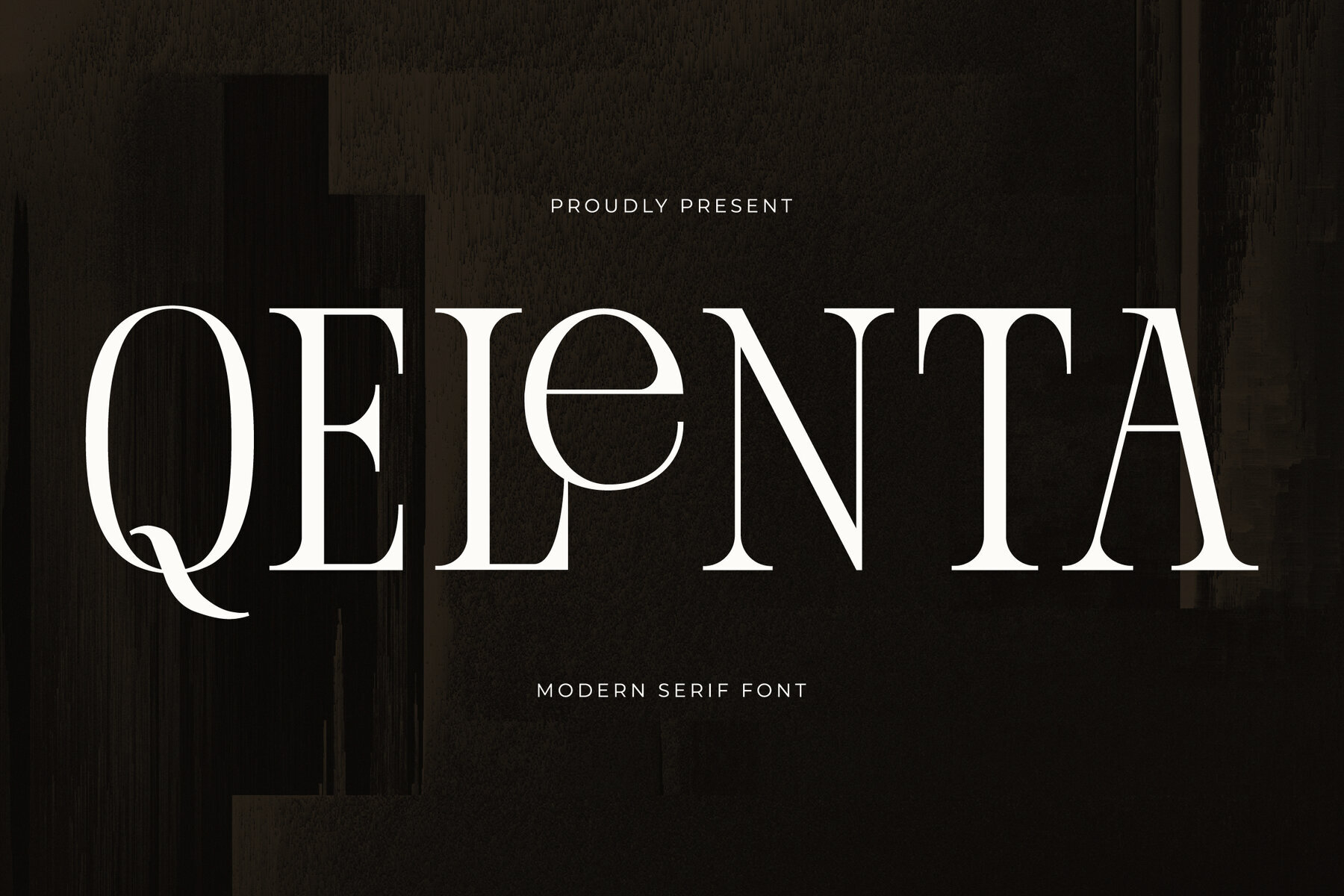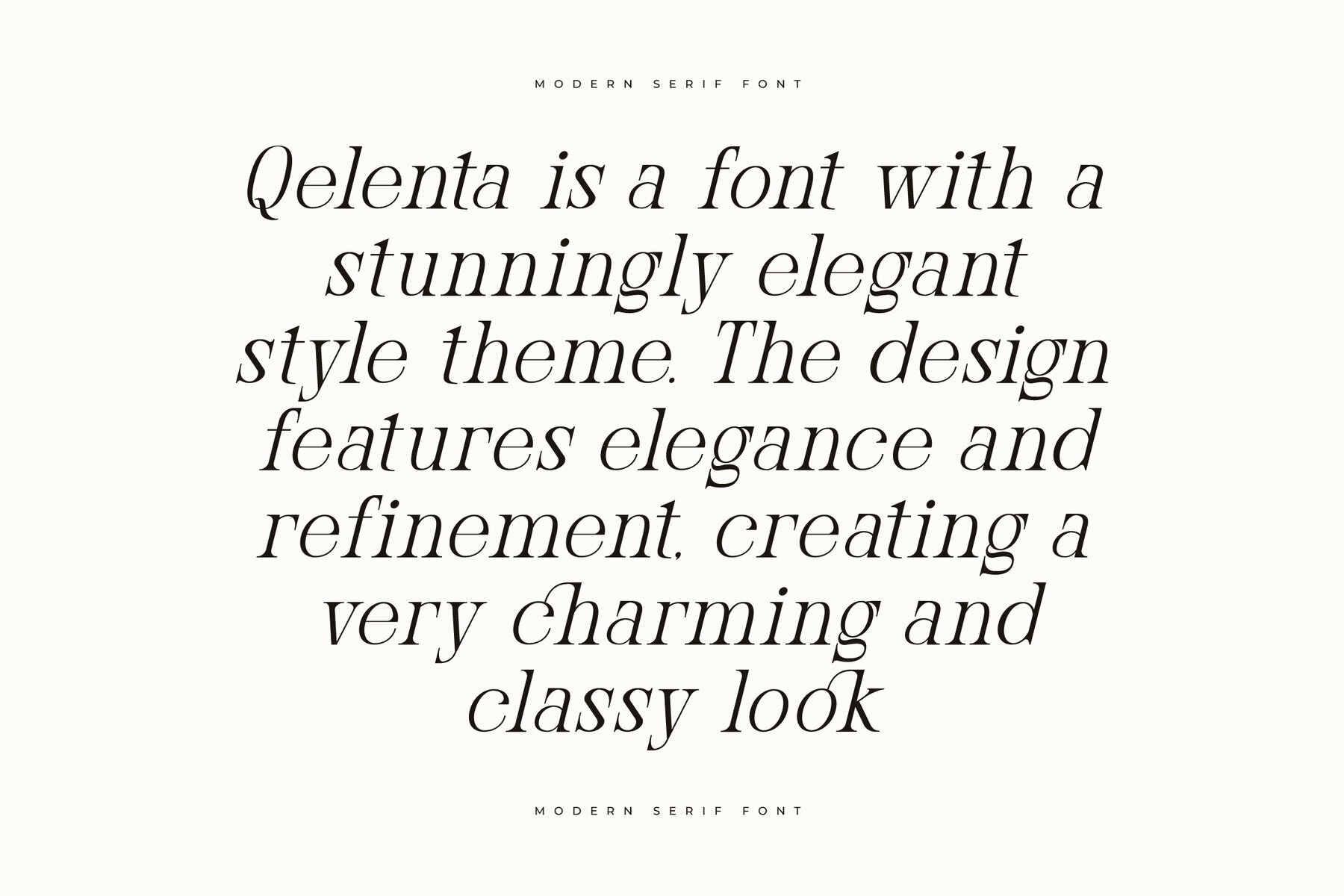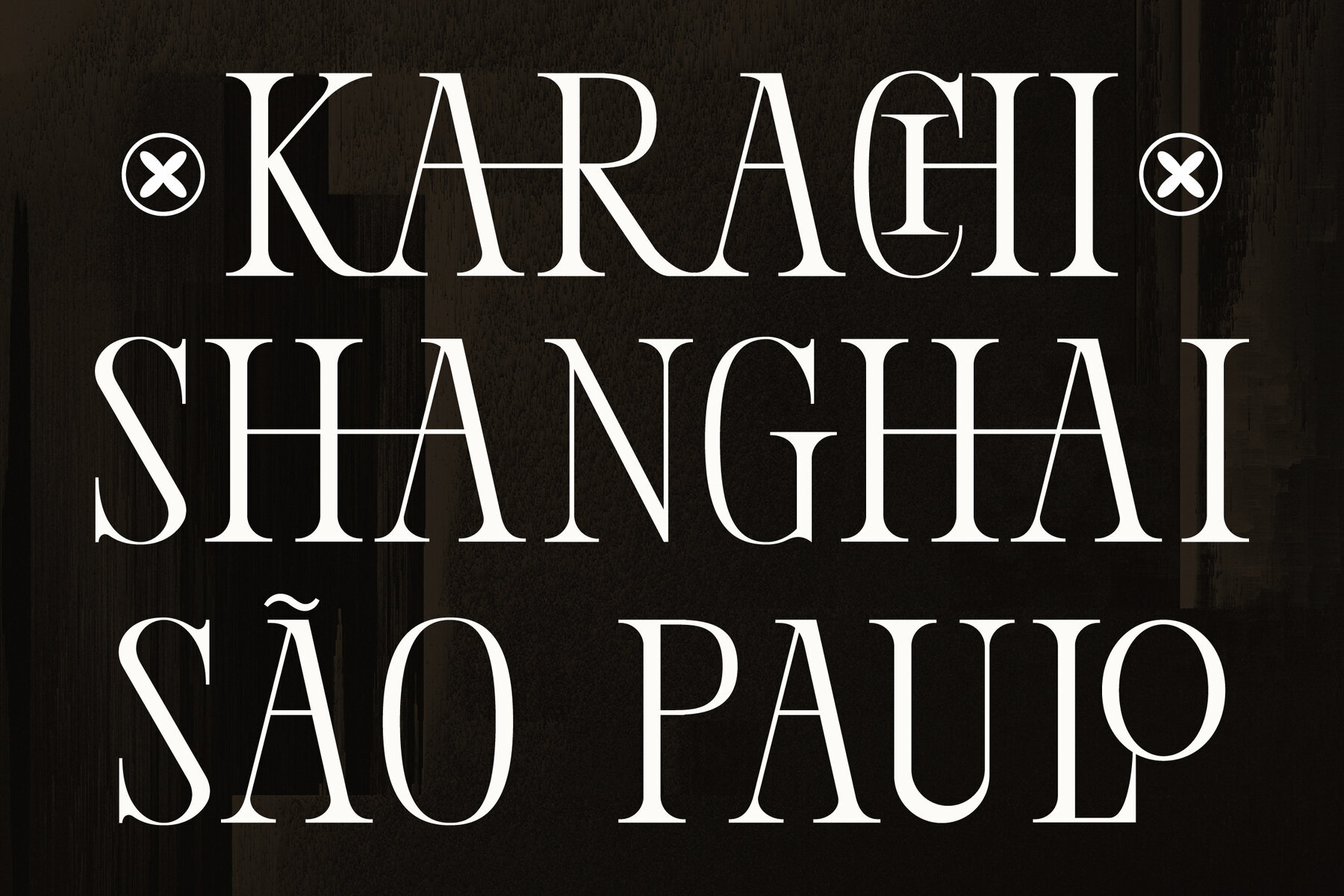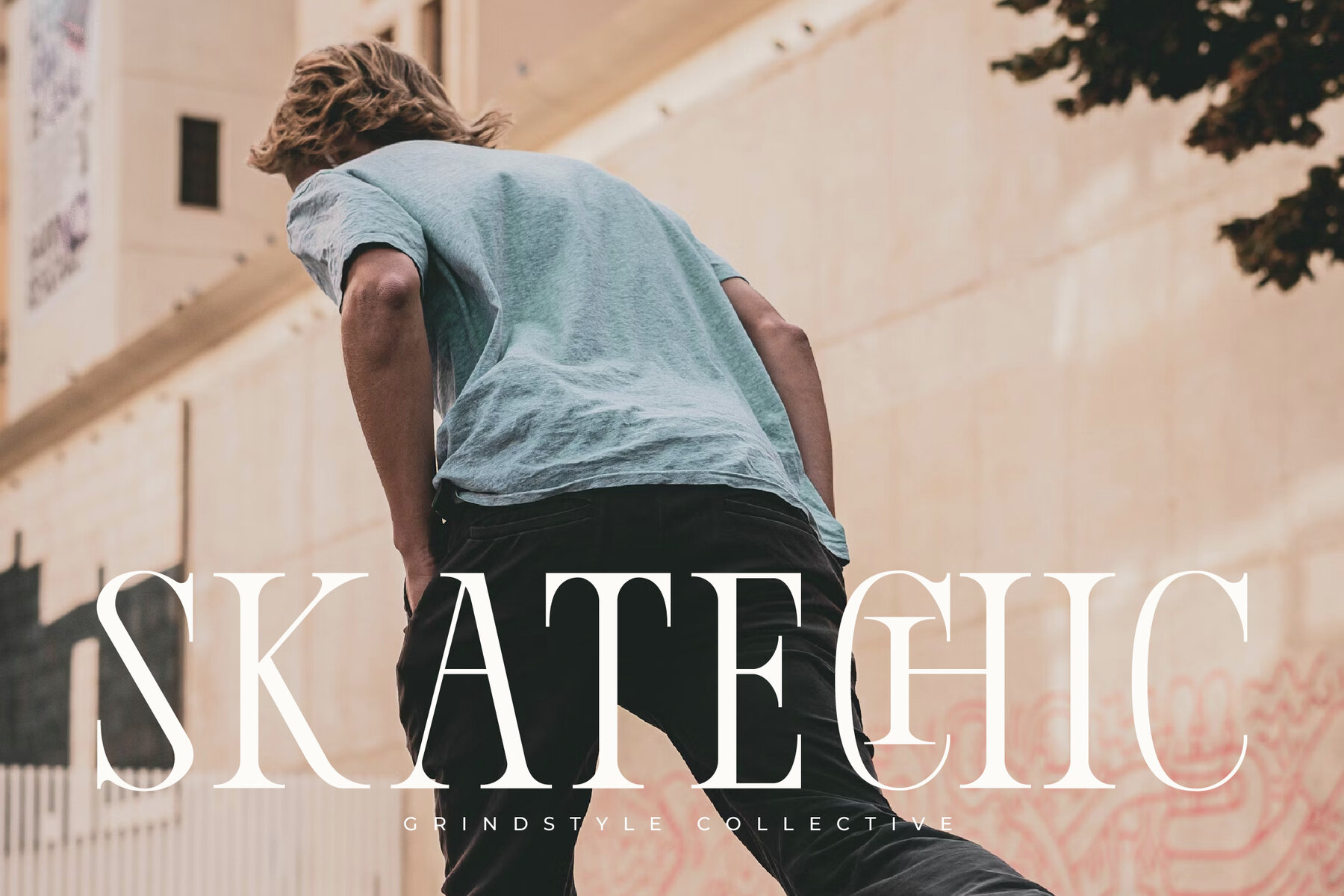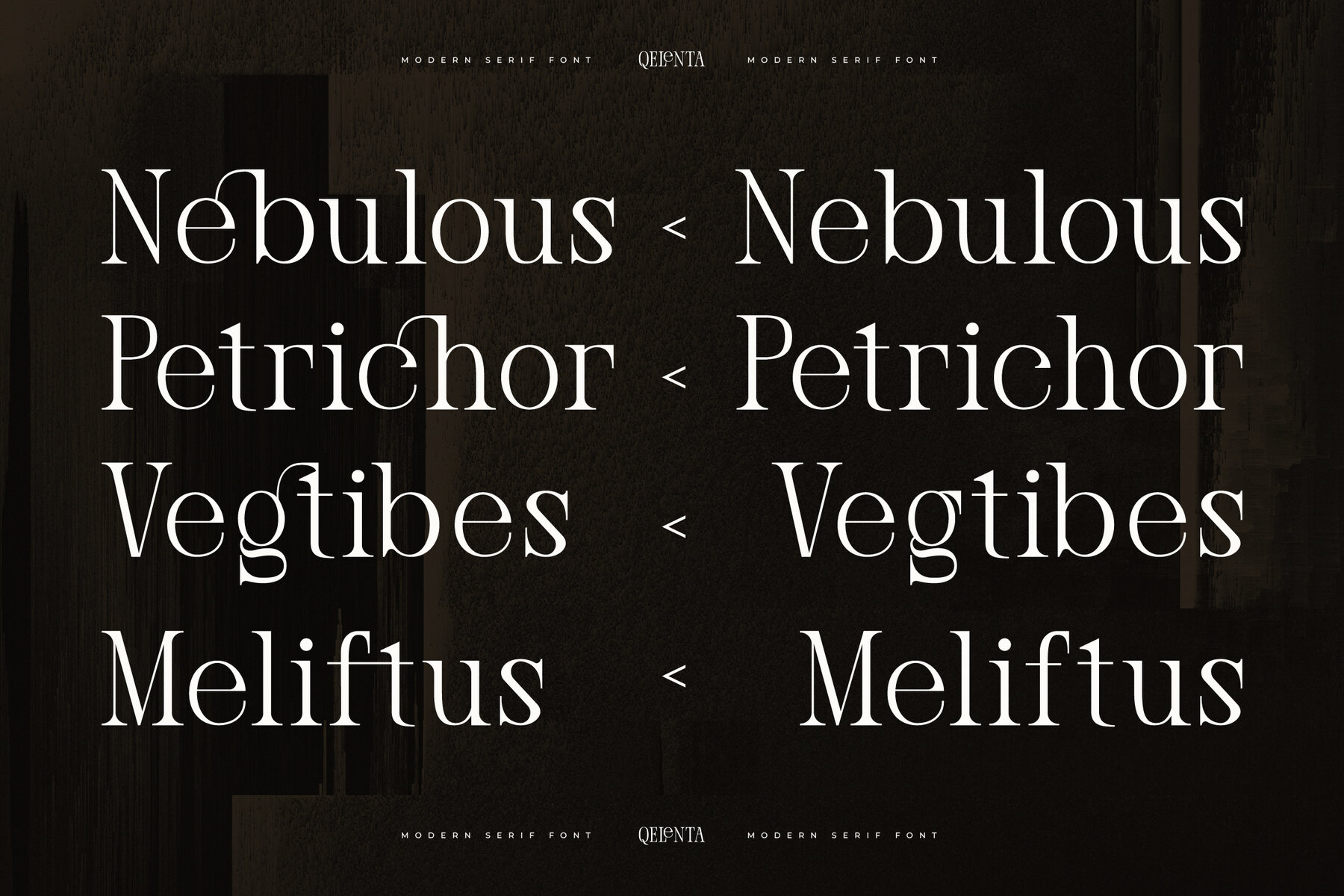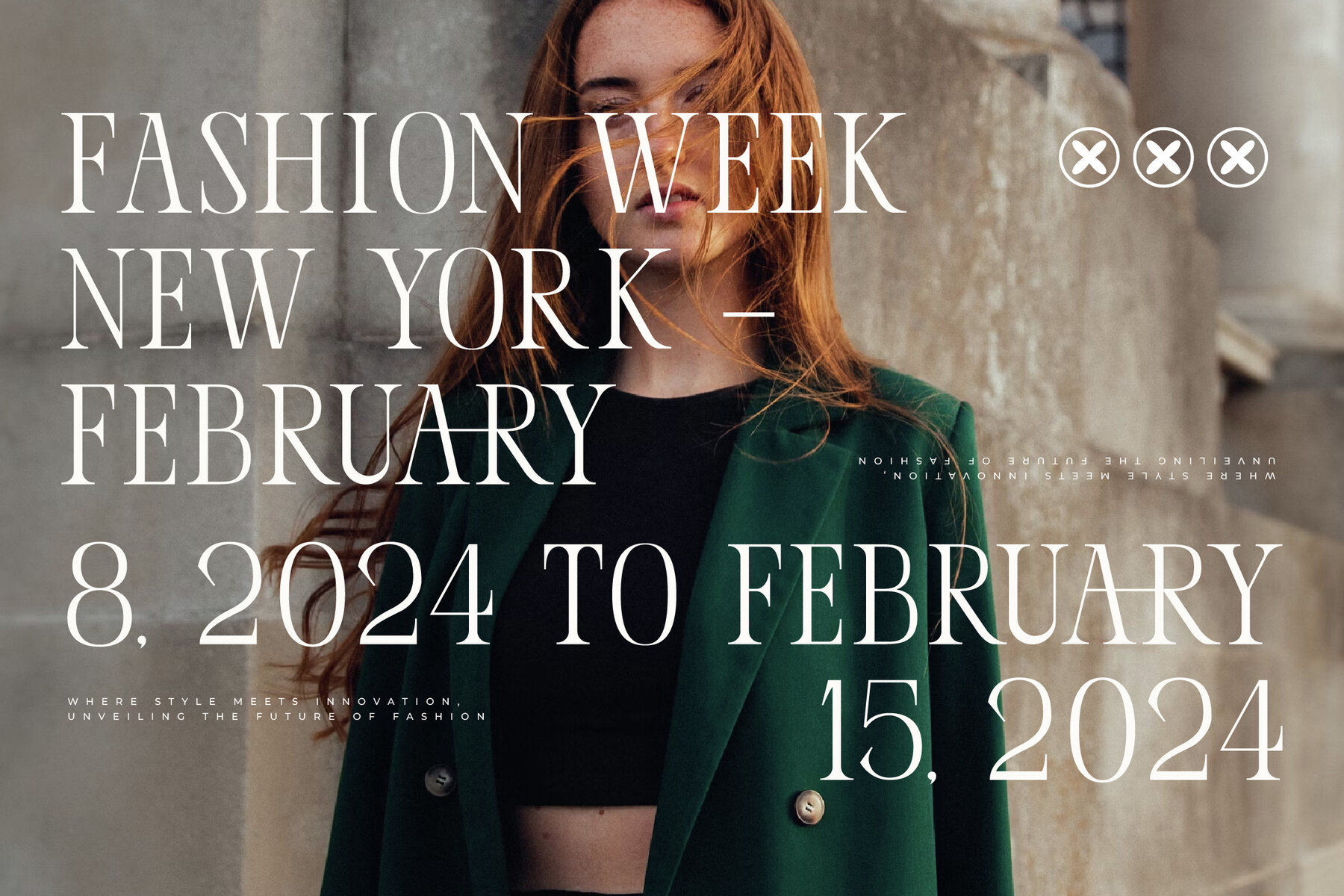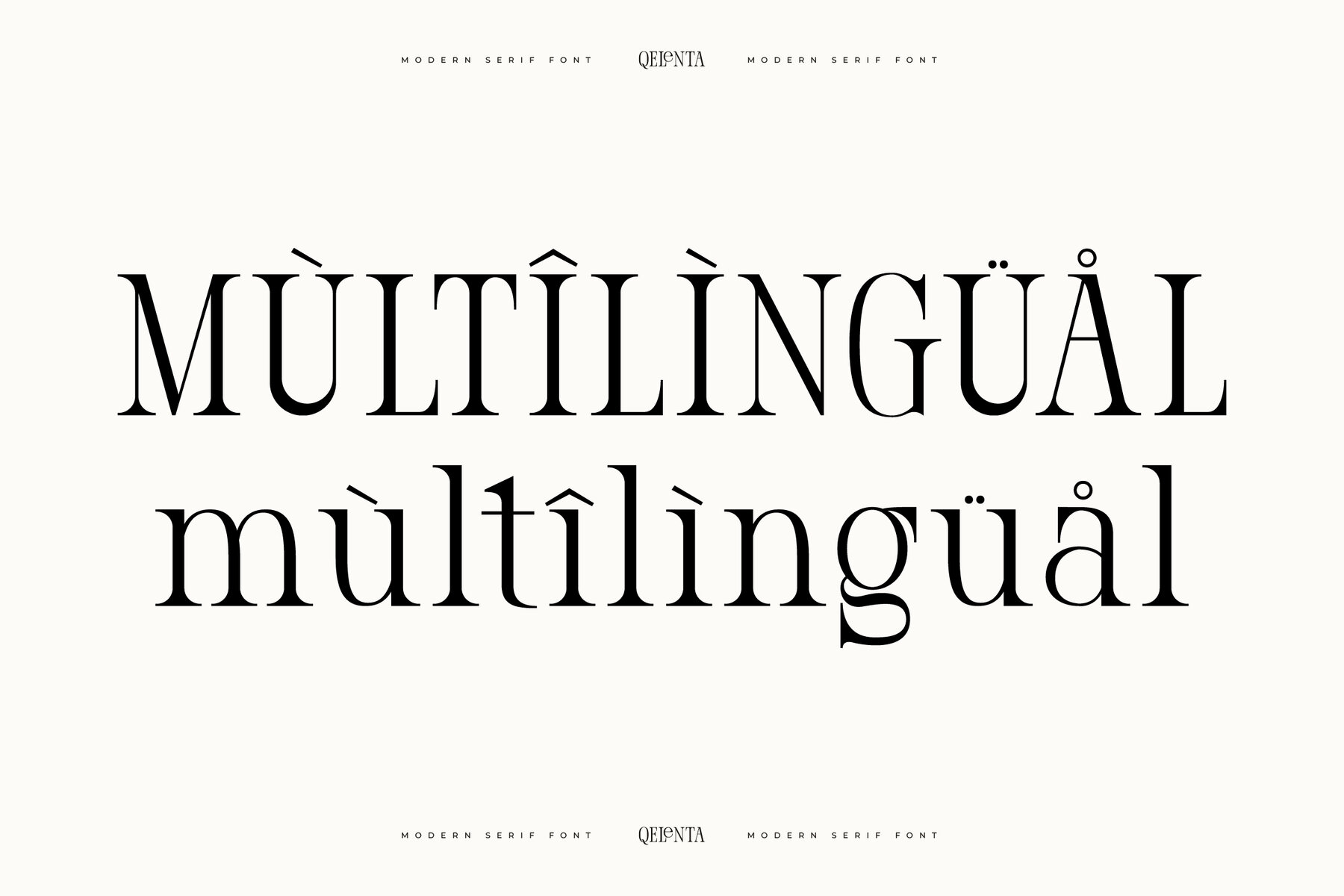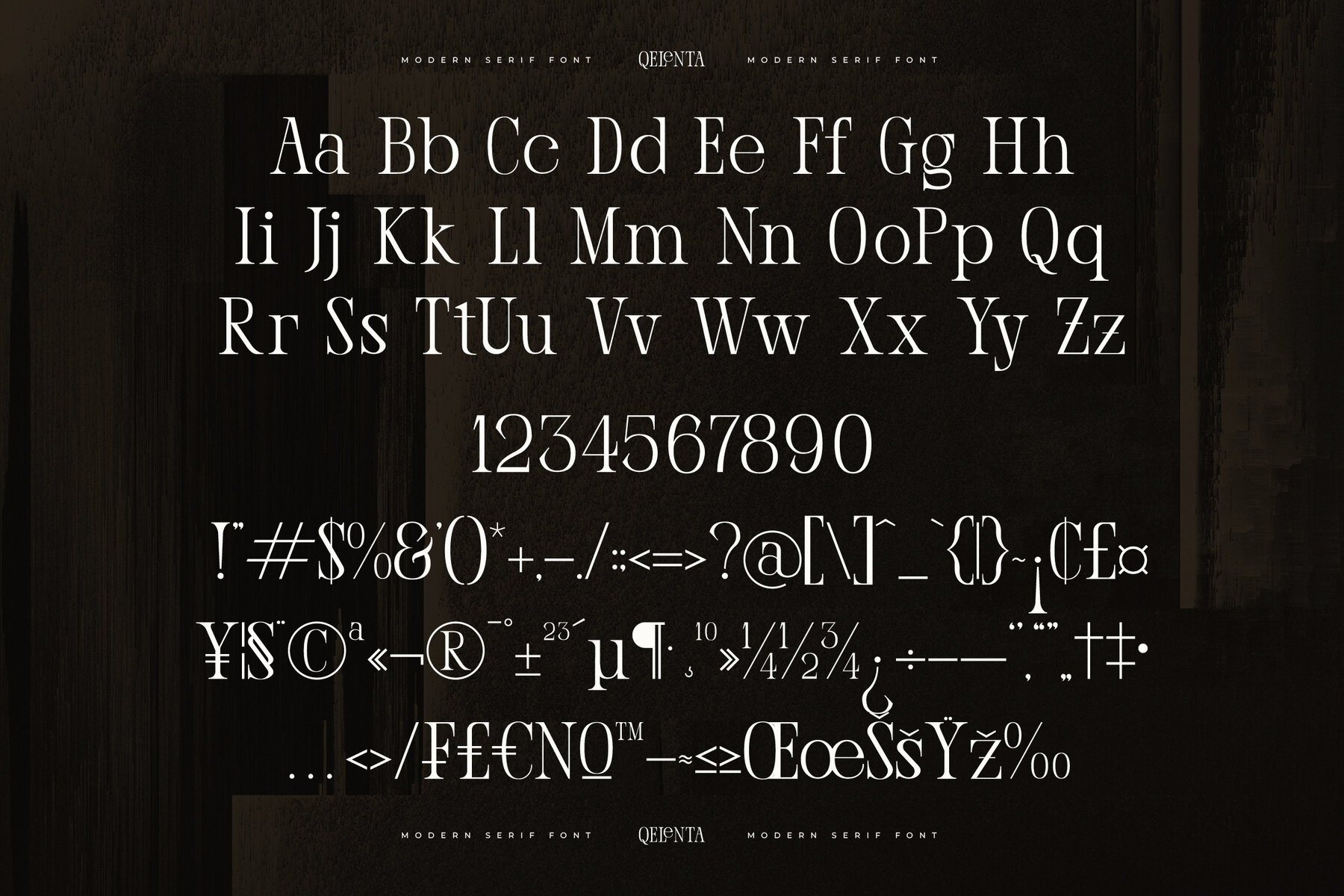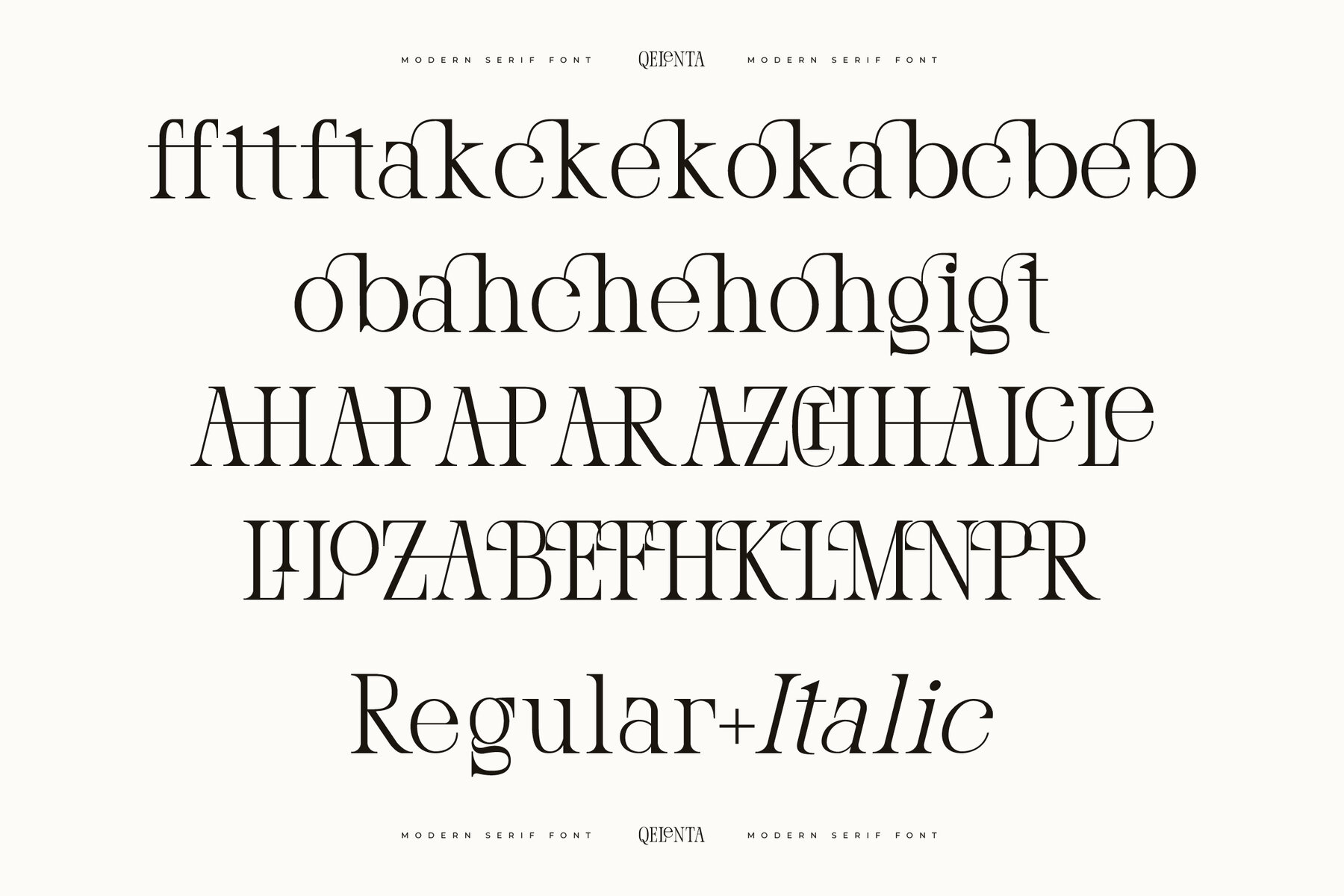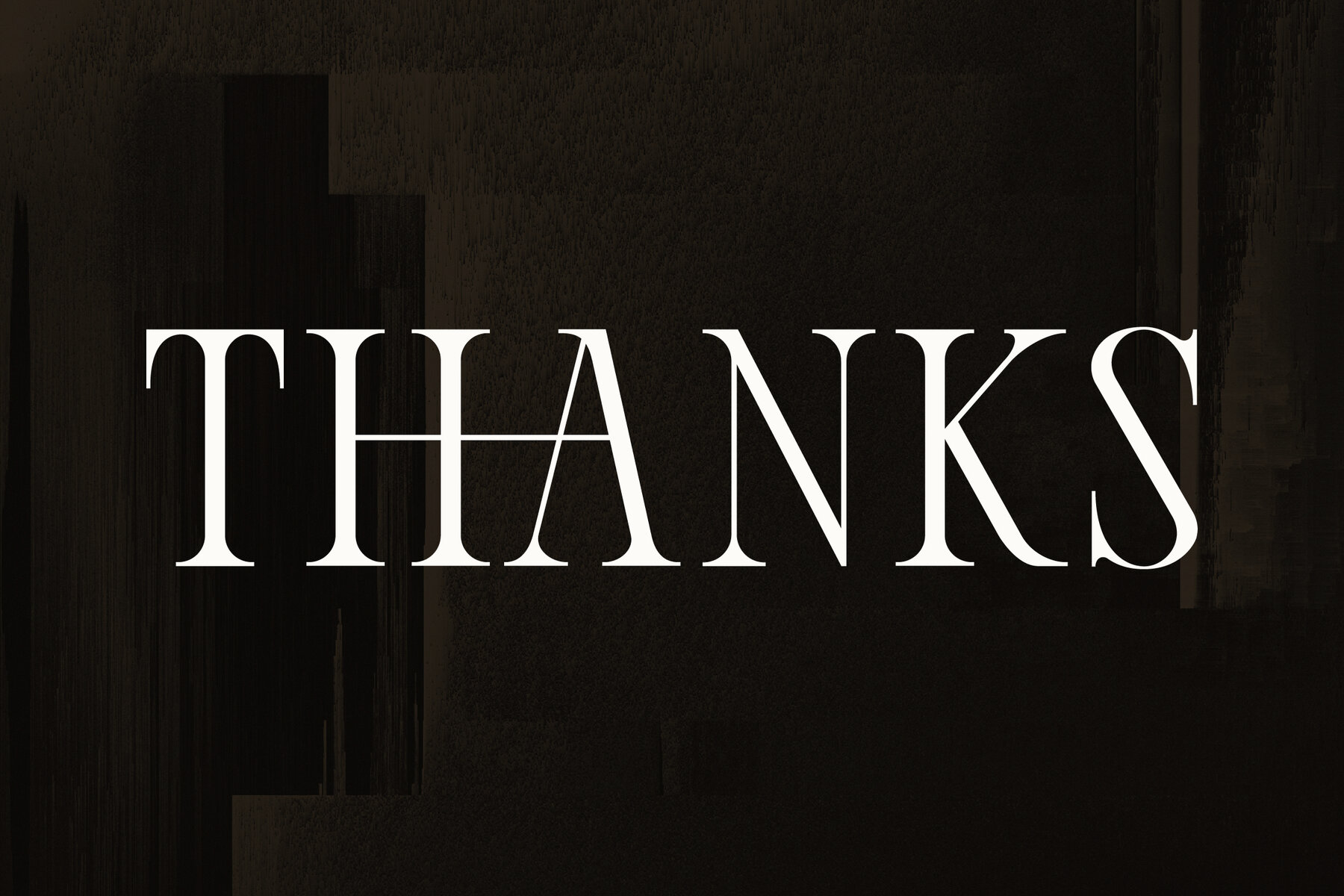
Qelenta Font
Qelenta exudes contemporary elegance and sophistication. This modern serif font is crafted with precision, offering the perfect balance between sleek lines and smooth curves. Each character is carefully designed to reflect a blend of classic and modern aesthetics, making it an ideal choice for high-end branding and editorial projects. Whether used in headlines, logos, or invitations, Qelenta delivers a sense of elegance and luxury. Let this font enhance your design work, infusing it with timeless elegance and modern flair. This Package Includes: